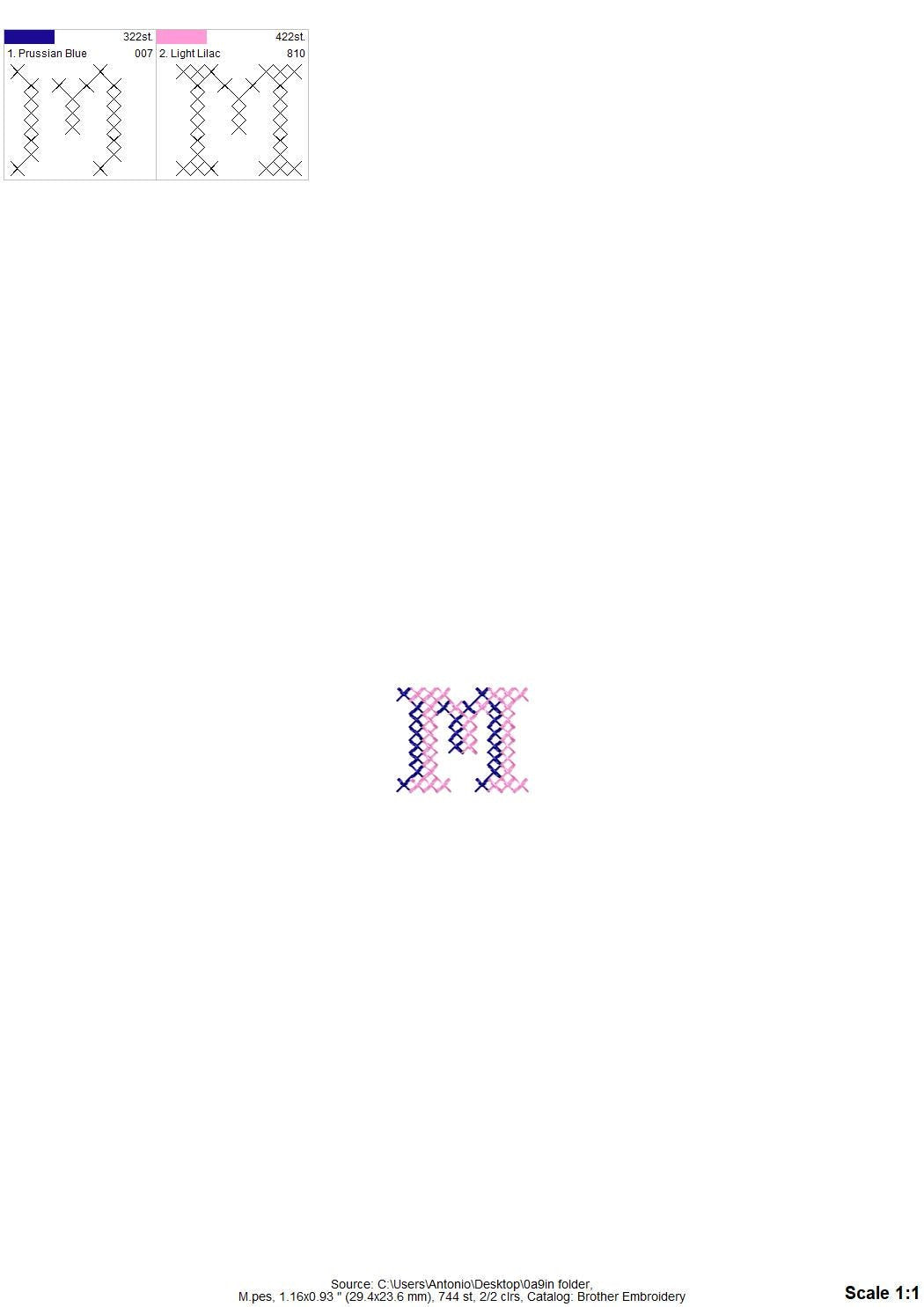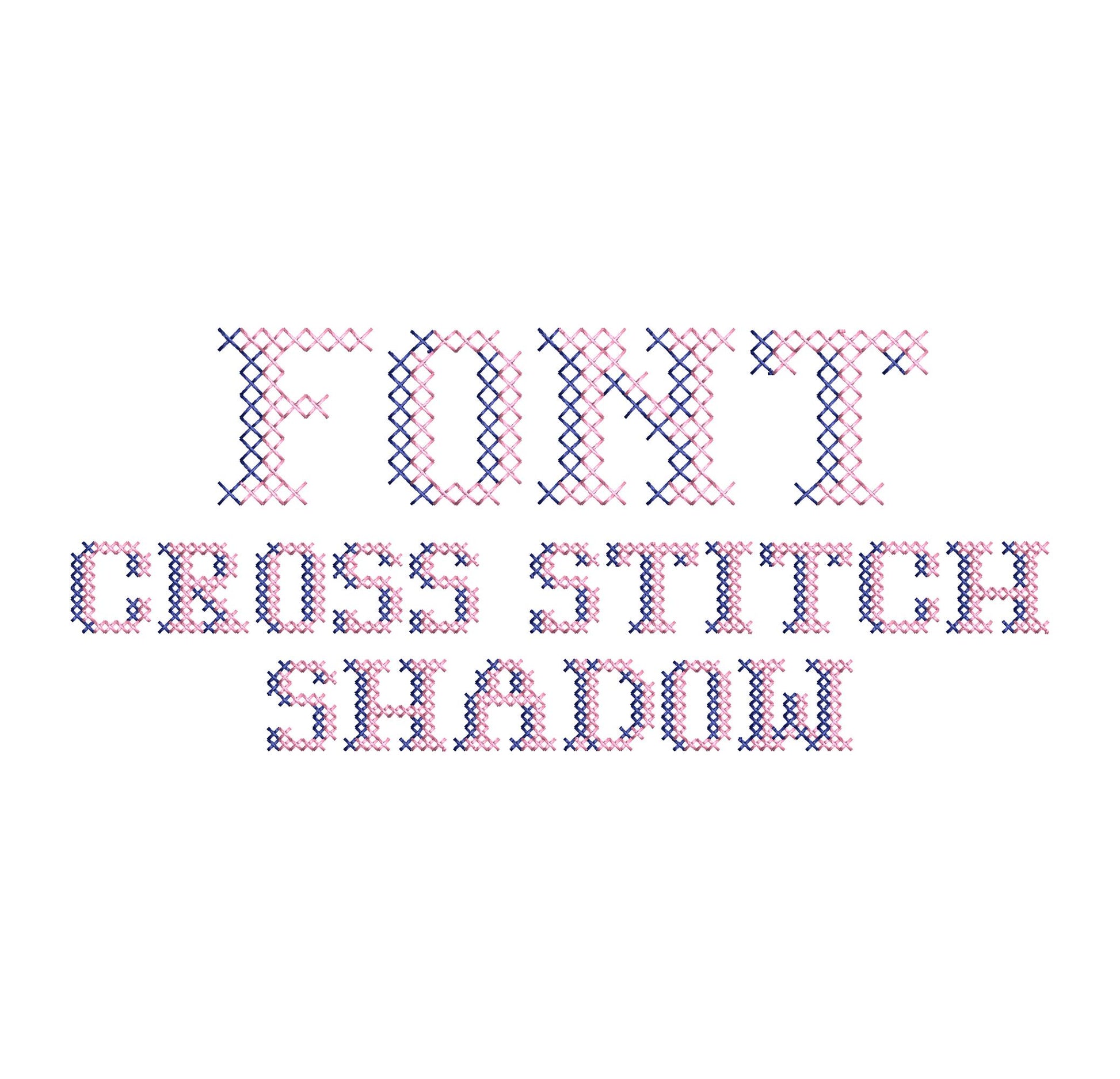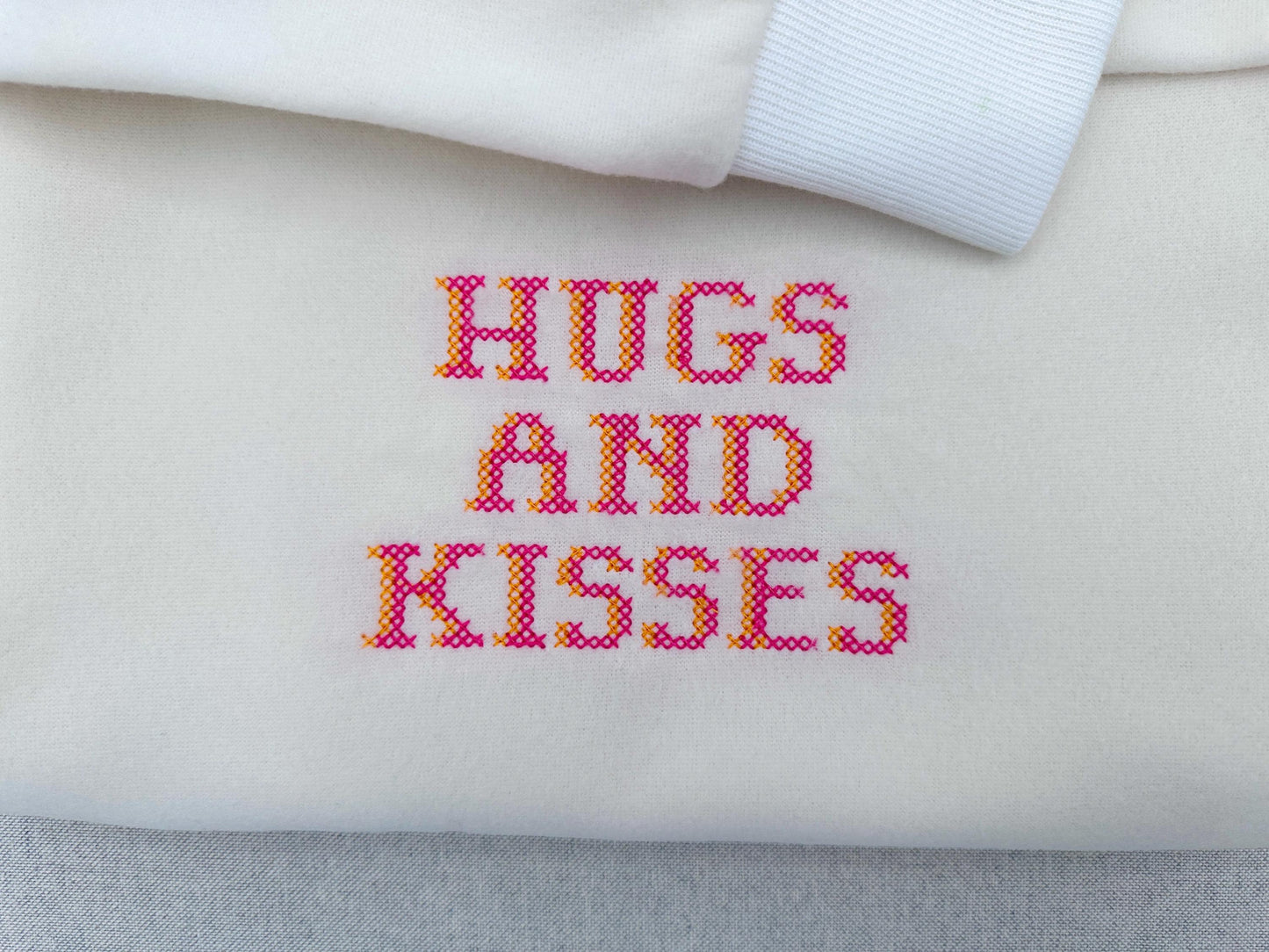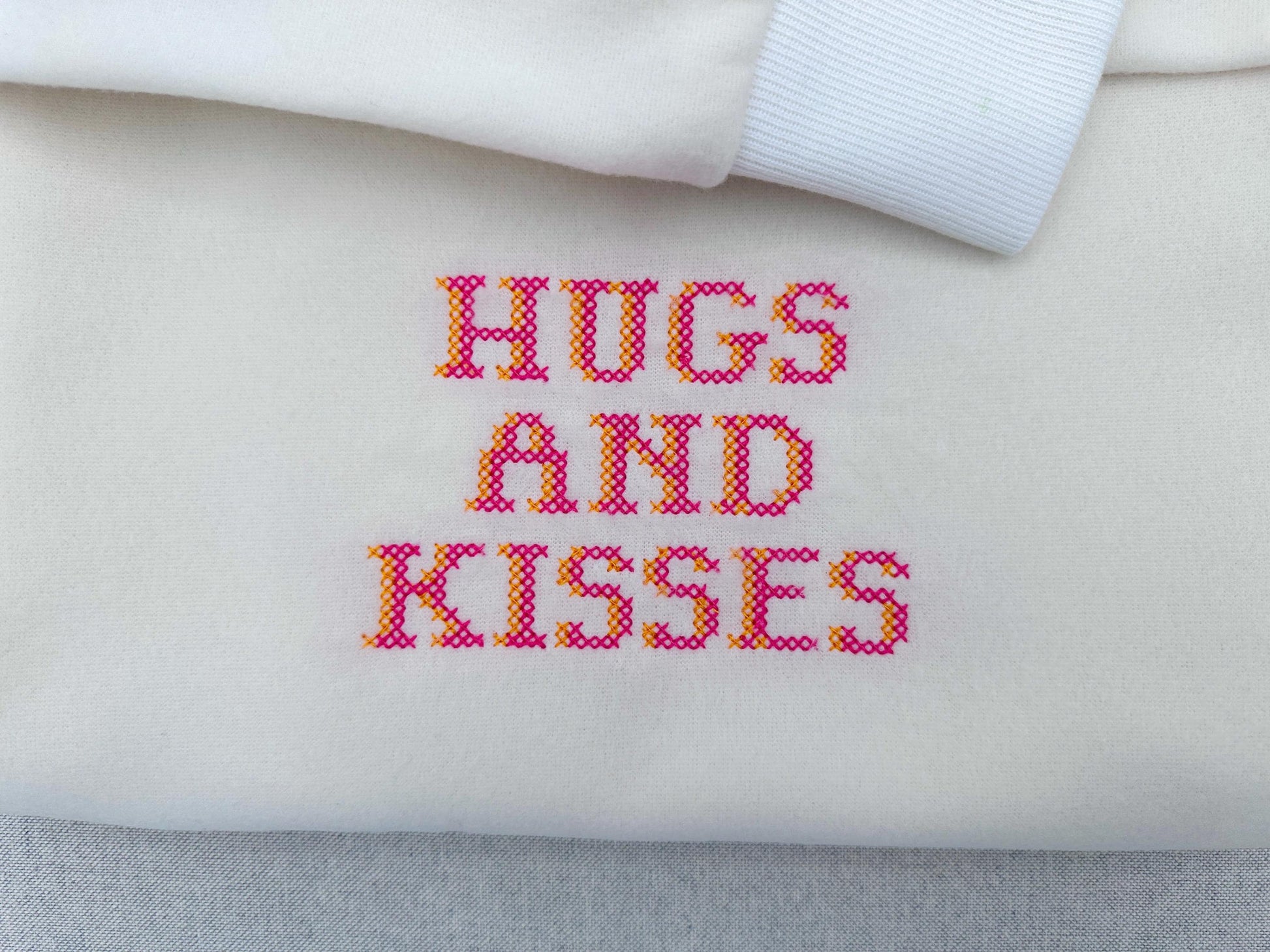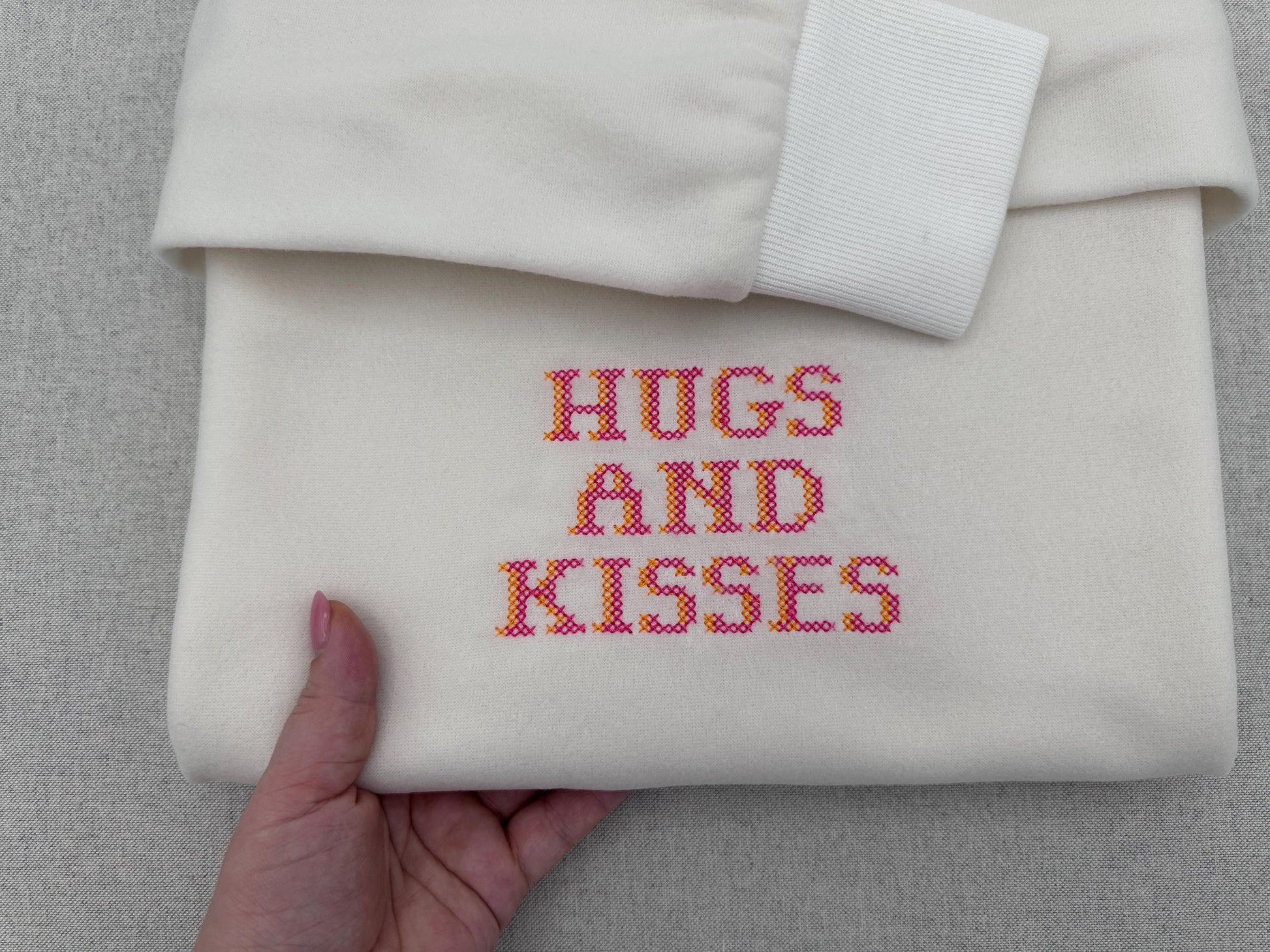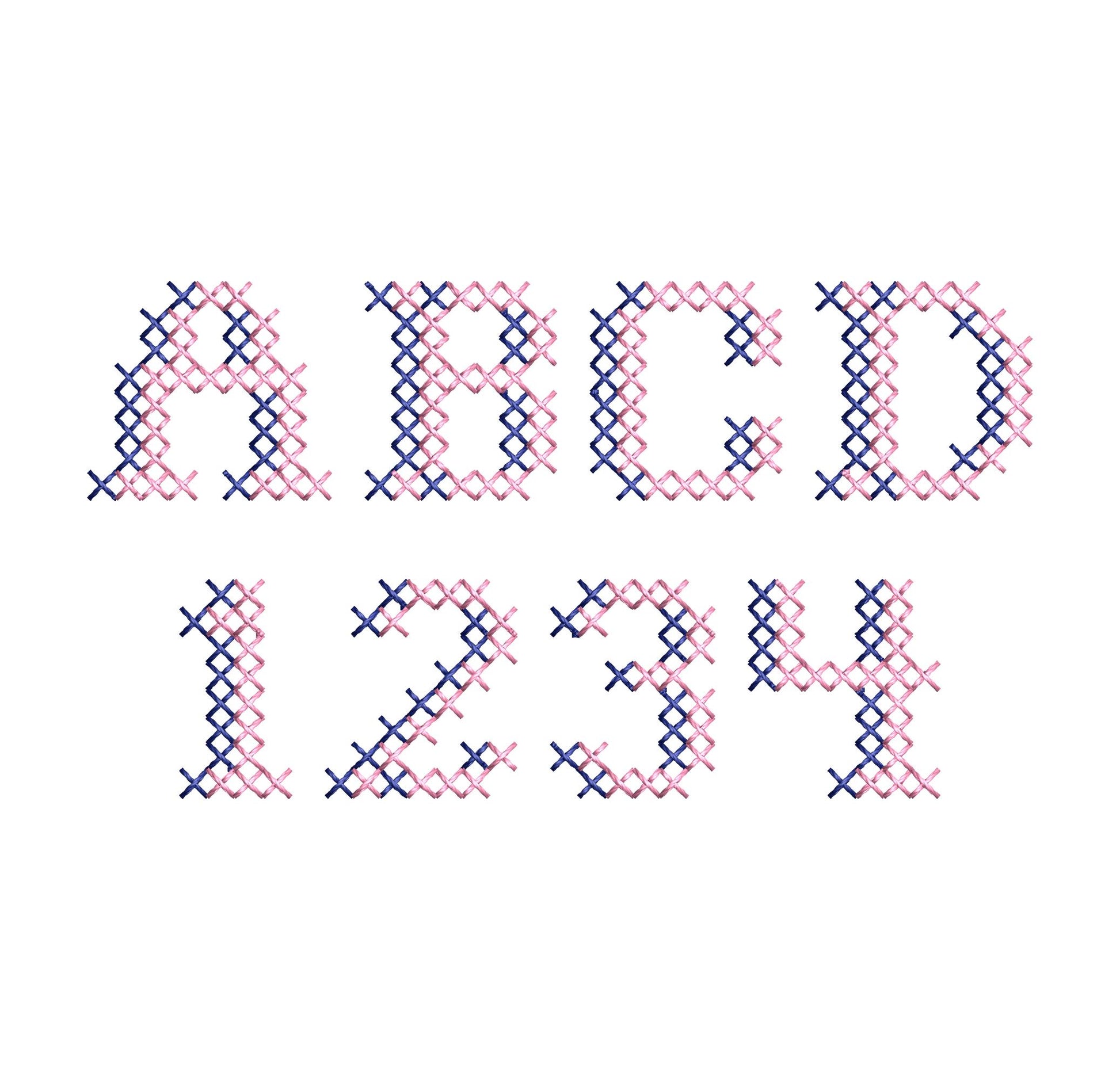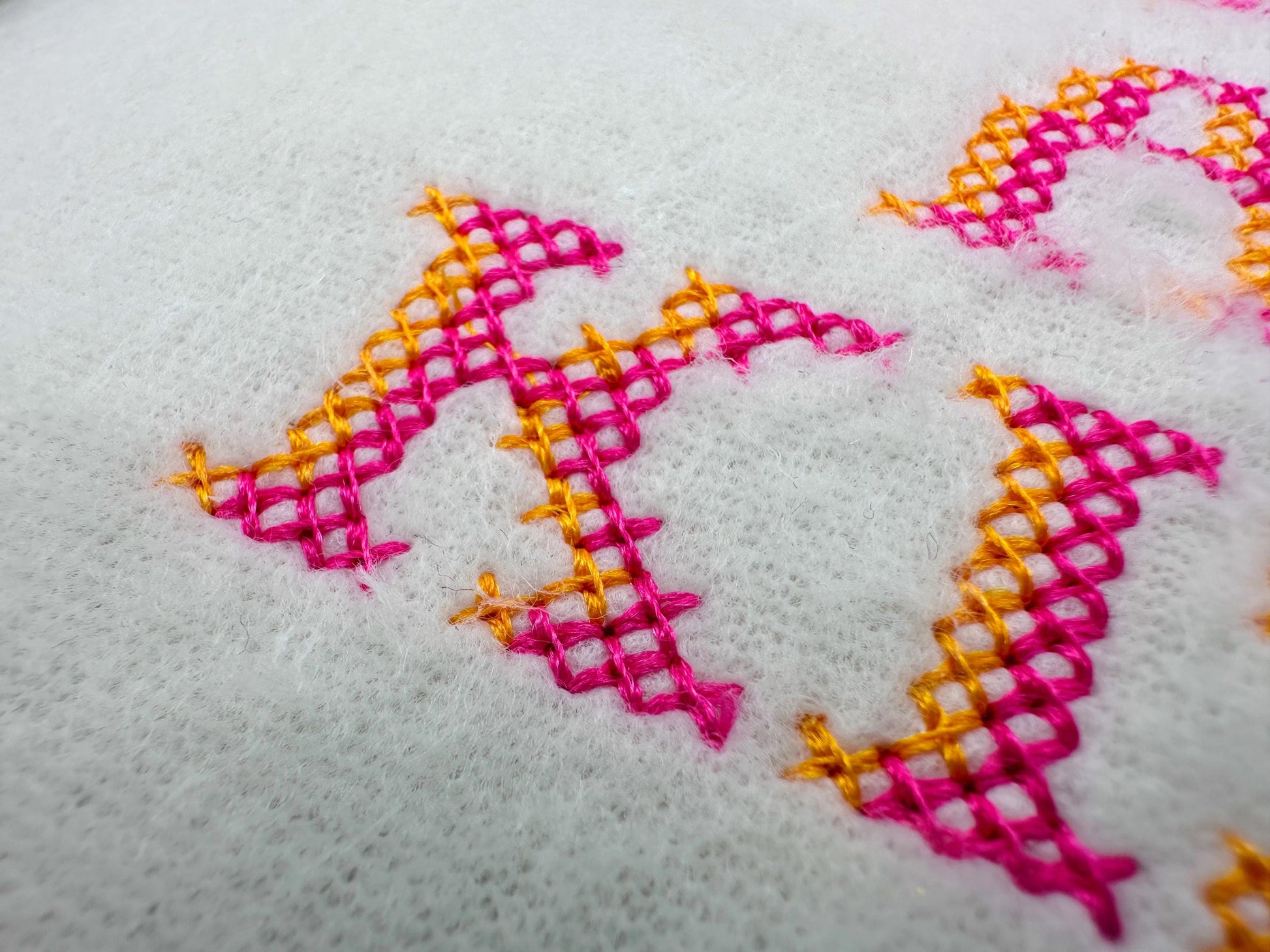
Or click to open the linkA cute cross stitch block font with a shadow, in tiny sizes. Charming for initials, small names and samplers.
The letters come in four mini sizes: 0.6, 0.7, 0.9 and 1.2 inches. Stitched in cross stitches with a soft shadow. Includes uppercase letters A to Z and numbers 0 to 9.